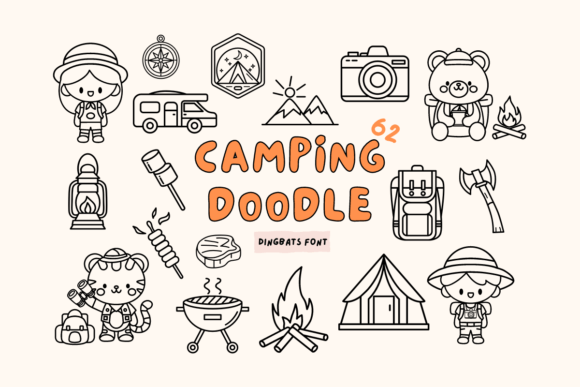
Camping Doodle Font: A Whimsical Typeface for Outdoor Enthusiasts
Are you a designer, crafter, or outdoor enthusiast looking for a unique and charming font to add a touch of adventure to your projects? Look no further than the Camping Doodle Font, a delightful typeface that captures the spirit of camping and the great outdoors.
Inspired by the Great Outdoors
The Camping Doodle Font is a hand-drawn typeface featuring illustrations inspired by camping and the natural world. This charming font is perfect for creating camping invitations, outdoor-themed designs, or nature-inspired graphics that evoke a sense of adventure and freedom. With its whimsical and rustic feel, this font is sure to add a touch of personality to any project.
A Font that’s Full of Character
What sets the Camping Doodle Font apart is its unique blend of letters and doodles. The font features a range of illustrations, including tents, campfires, backpacks, and more, all carefully crafted to evoke the spirit of camping and the great outdoors. These playful illustrations add a touch of whimsy to any project, making it perfect for designers and crafters who want to create something truly special.
Perfect for a Range of Projects
The Camping Doodle Font is incredibly versatile, making it perfect for a wide range of projects. Here are just a few ideas to get you started:
- Camping invitations: Create custom invitations for your next camping trip that set the tone for a fun and adventurous getaway.
- Outdoor-themed designs: Use the Camping Doodle Font to create eye-catching designs for outdoor gear, apparel, or accessories.
- Nature-inspired graphics: Add a touch of whimsy to your nature-inspired graphics, such as posters, flyers, or social media graphics.
- DIY crafts: Use the Camping Doodle Font to create custom signs, banners, or decorations for your next camping trip or outdoor gathering.
Key Features of the Camping Doodle Font
Here are some of the key features that make the Camping Doodle Font so special:
- Hand-drawn illustrations: Each letter and doodle is carefully crafted to evoke the spirit of camping and the great outdoors.
- Whimsical and rustic feel: The font has a charming, nostalgic feel that’s perfect for creating unique and eye-catching designs.
- Versatile: The font is perfect for a wide range of projects, from camping invitations to outdoor-themed designs.
Tips for Using the Camping Doodle Font
Here are a few tips for getting the most out of the Camping Doodle Font:
- Experiment with different colors: The font looks great in a range of colors, from earthy tones to bright and bold hues.
- Mix and match illustrations: Combine different illustrations to create unique and eye-catching designs.
- Use it with other fonts: Pair the Camping Doodle Font with other fonts to create interesting and dynamic typography.
The Camping Doodle Font is a charming and versatile typeface that’s perfect for designers, crafters, and outdoor enthusiasts. With its hand-drawn illustrations and whimsical feel, this font is sure to add a touch of adventure and personality to any project. Whether you’re creating camping invitations, outdoor-themed designs, or nature-inspired graphics, the Camping Doodle Font is the perfect choice.